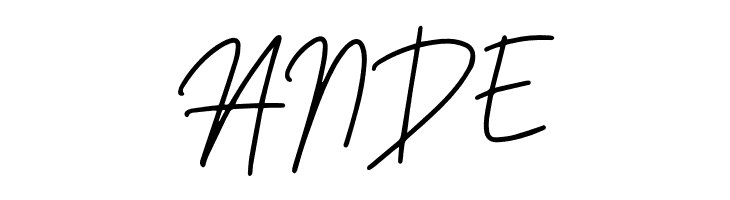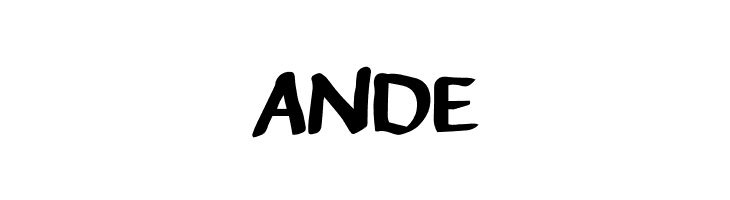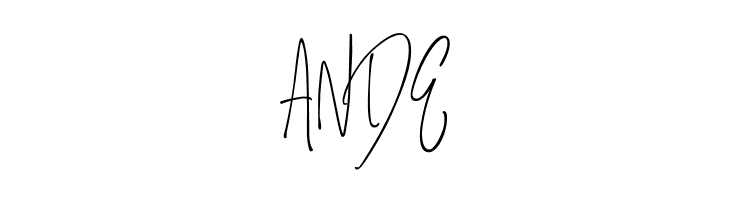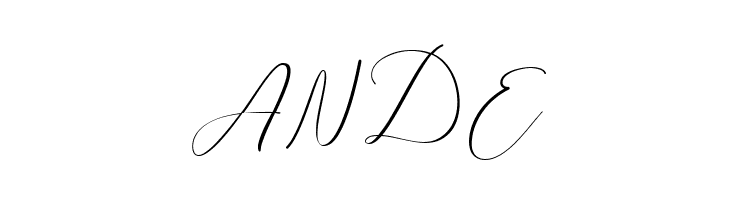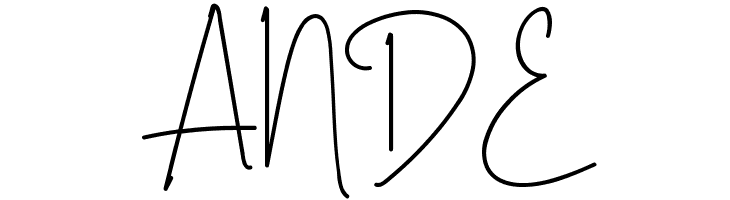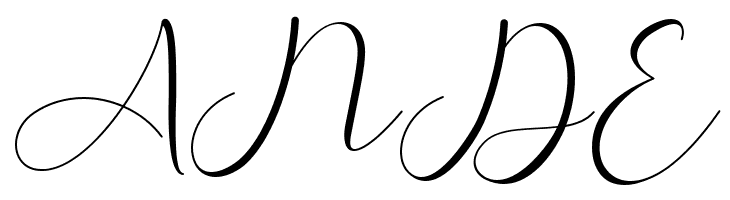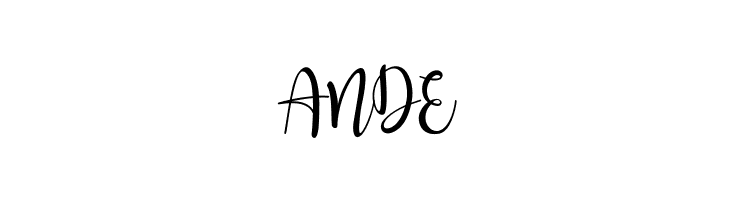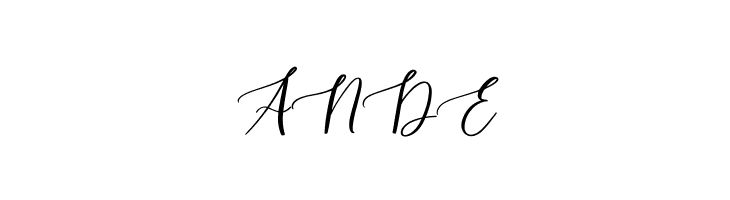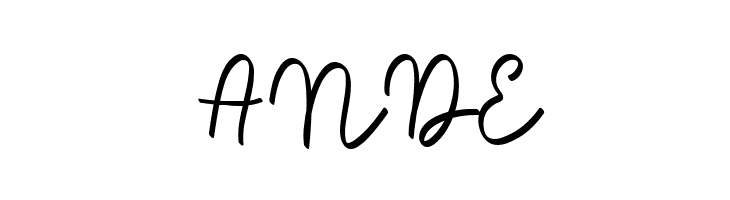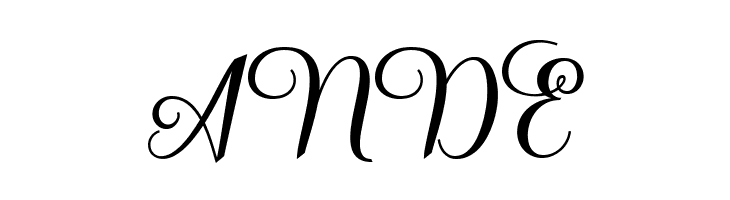
An elegant, flowing script font with a cursive, handwritten style.
A bold, calligraphic font with sharp, angular strokes and dramatic flair.
A lively, flowing script font with elegant cursive letterforms.
A dynamic, handwritten script with fluid, elongated characters.
A playful and elegant script font with flowing, cursive characters.
A sophisticated script font with elegant swashes and flowing cursive style.
An elegant script font with flowing, interconnected characters and ornate flourishes.
A graceful and elegant script font with a handwritten style.
Handwritten, ancient script with organic, flowing forms.
An elegant and sophisticated script font with flowing cursive letters and intricate flourishes.
A bold, gothic-inspired font with sharp, angular edges and a dramatic flair.
An elegant script font with fluid, graceful strokes and artistic curves.
Ornate, illustrative font with medieval and mythical motifs.
A graceful and elegant script font with flowing, cursive letters.
A bold and dynamic script font with flowing letterforms and strong visual impact.
A bold, brush-style font with dynamic and expressive strokes.
A bold, brush-style font with dynamic, slanted strokes for an energetic look.
A fluid, cursive script font with elegant connections and a dynamic feel.
A modern, geometric font with clean lines and a minimalist style.
A cursive, handwritten font with elegant, flowing strokes.
A graceful script font with fluid, cursive strokes and elegant flourishes.
An elegant, flowing script font with interconnected, graceful curves.
A graceful script font with flowing, interconnected letters and elegant curves.
A playful, handwritten script font with a casual and friendly style.
A bold, italicized font with a geometric and angular style.
A bold, angular, and futuristic italic font with a dynamic geometric style.
A graceful and artistic script font with elegant loops and flourishes.